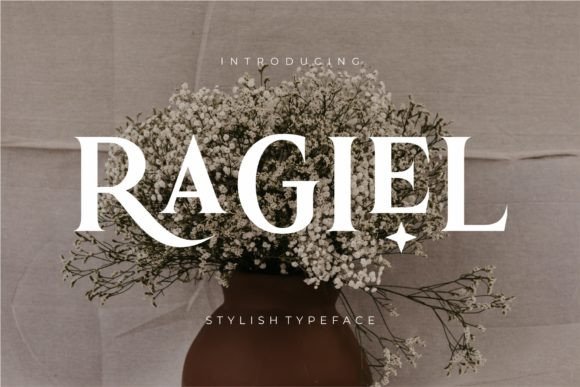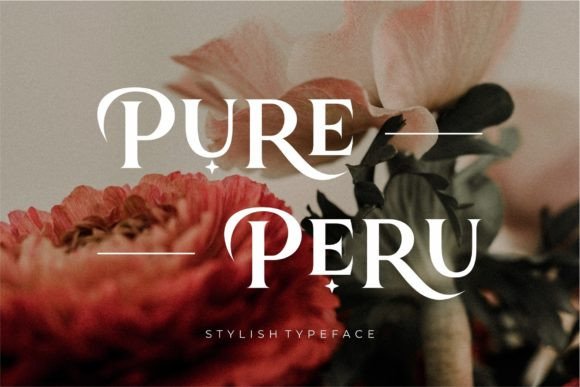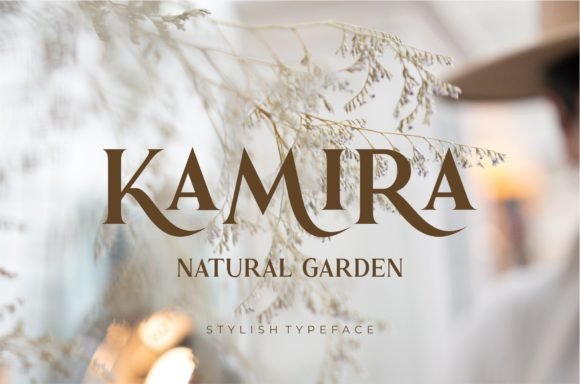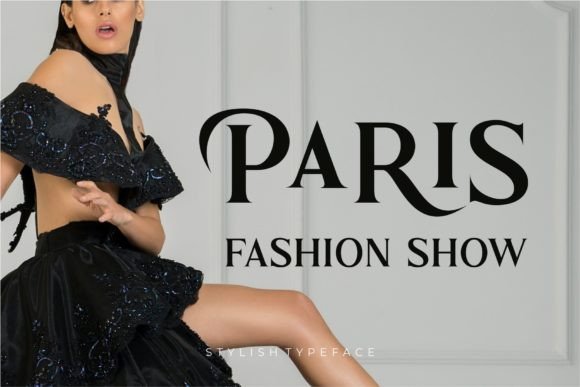
Ragiel Font: Elegant Serif Typography for Modern Logo Design
About the Ragiel Font
Add a touch of class to your work with the Ragiel Font, a truly exceptional typeface. Ragiel inspired by the famous minimalist logo perfect for the purposes of designing templates, brochures, videos, advertising branding, logos, invitation, layout design, elegant crafting, beauty design and more.
Ragiel’s minimalist aesthetic makes it ideal for headlines, logos, and short, impactful text in branding materials and advertising. It excels in creating a sophisticated and memorable impression. However, its clean lines and limited character set make it unsuitable for body text or long paragraphs; readability suffers at smaller sizes.
Consider pairing Ragiel with a clean sans-serif like Open Sans for body copy, or a warmer serif like Merriweather for a more traditional feel. For a more modern and striking contrast, a geometric sans-serif such as Montserrat could be effective.
Ragiel projects a confident, modern, and elegant personality. It is best suited for brands and projects that value simplicity, sophistication, and visual impact.